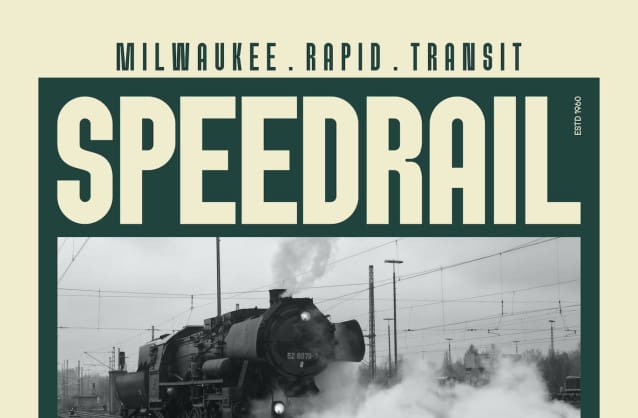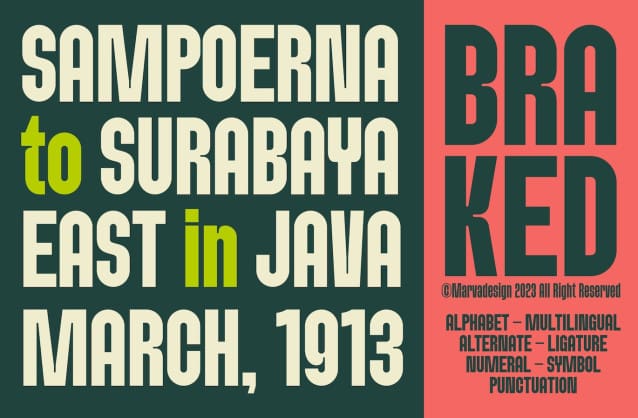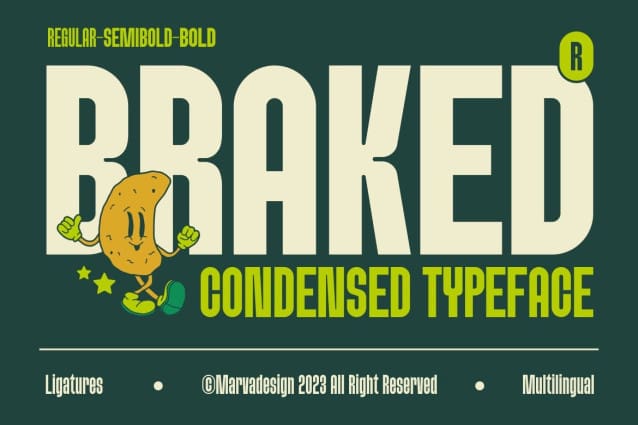
Braked Font
Braked Font – An authentic family sans condensed display font. The font is suitable for all branding projects like Logo, Template Design, Products and many more. It is exceptional in a wide range of contexts